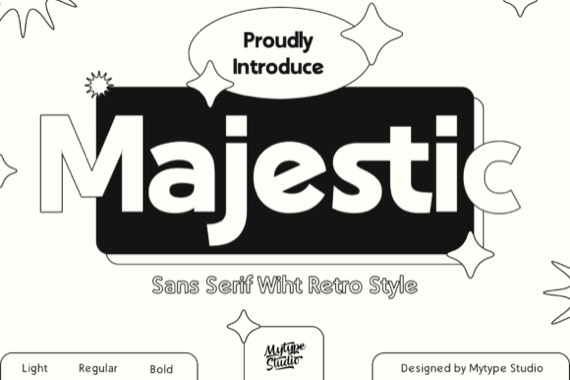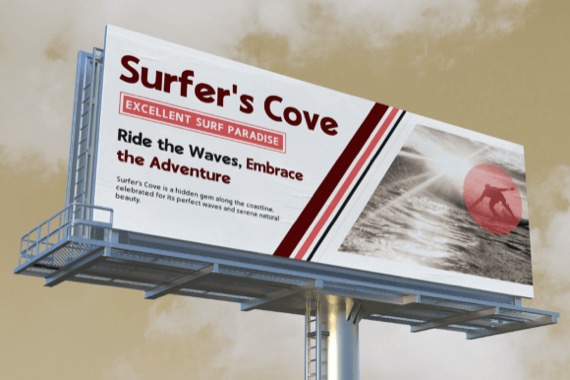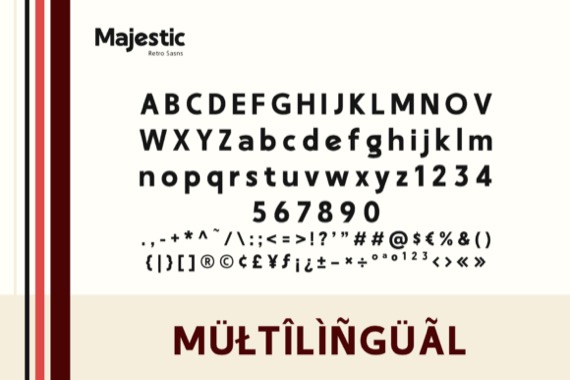
Unleash your creativity with Majestic, the latest addition to your design toolkit. Inspired by classic retro aesthetics, Majestic offers a versatile sans serif typeface available in three distinct weights: Light, Regular, and Bold. Whether you’re working on a vintage-themed project, modern branding, or eye-catching headlines, Majestic delivers the perfect blend of nostalgia and contemporary style.
Features: -Retro Vibes: Embrace the charm of yesteryears with a typeface that captures the essence of retro design. -Versatile Weights: Choose from Light, Regular, and Bold to create dynamic and engaging visual hierarchies.
Clean and Crisp: Enjoy the clarity and readability of a sans serif typeface, perfect for both print and digital mediums.
Designed for Impact: Majestic’s bold lines and unique character make it ideal for logos, posters, advertisements, and more.
Majestic stands out with its timeless appeal and adaptability. It’s not just a font; it’s a statement piece that brings a touch of elegance and fun to any project. Designed by Mytype Studio, this typeface is crafted with attention to detail, ensuring high quality and usability.
Majestic Sans Serif Font